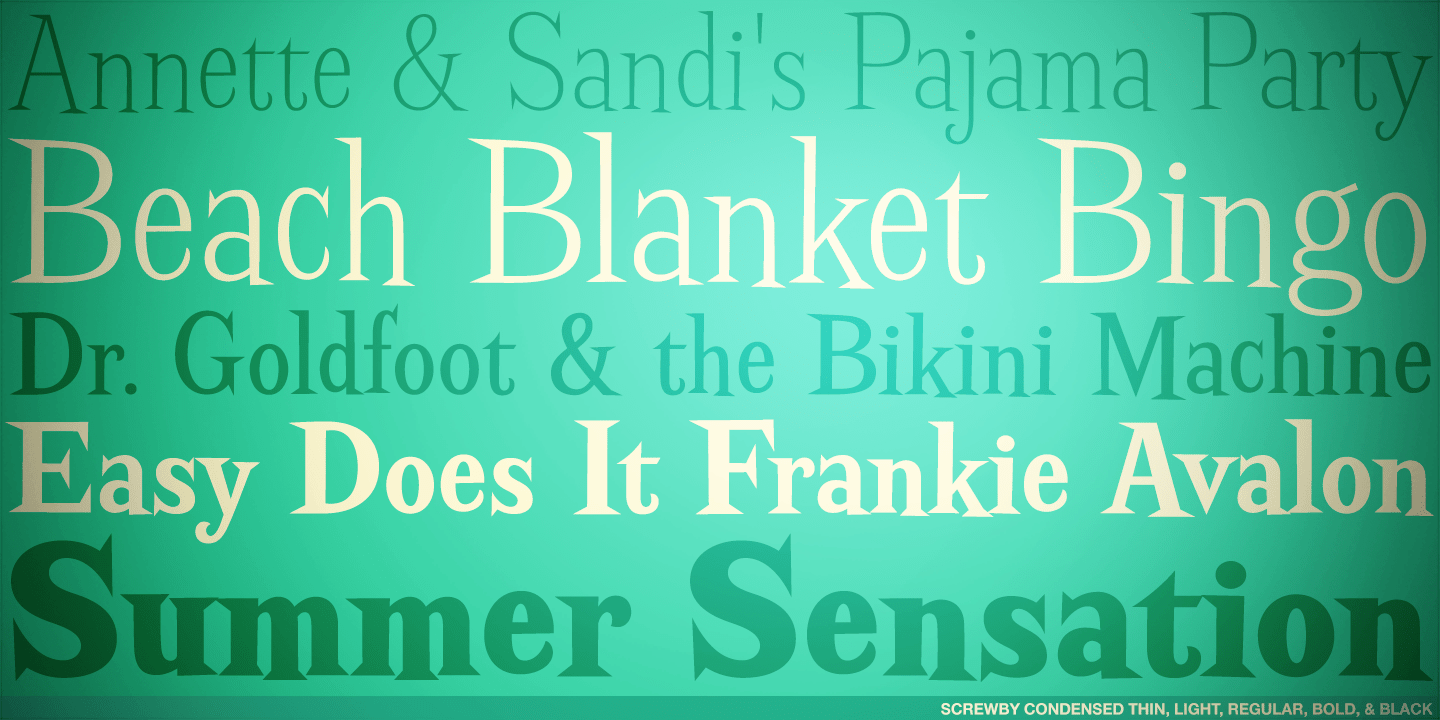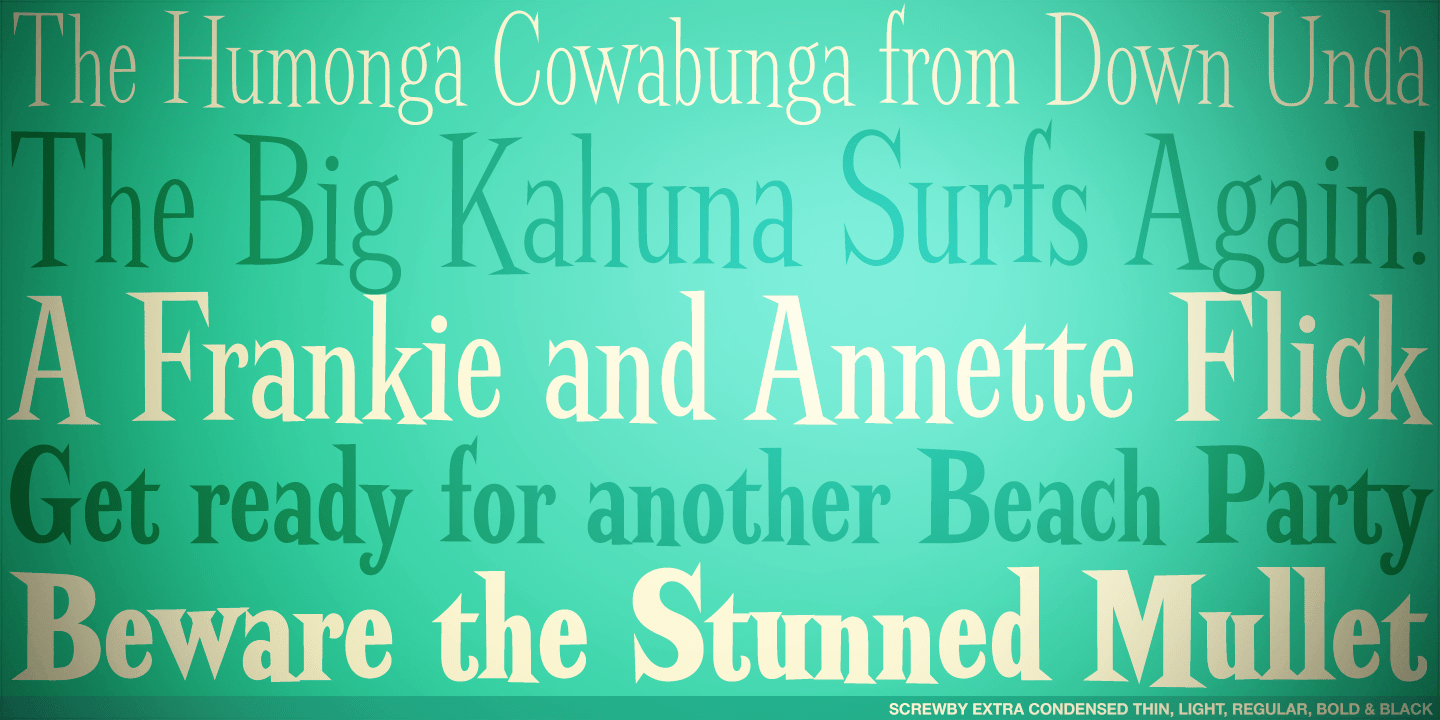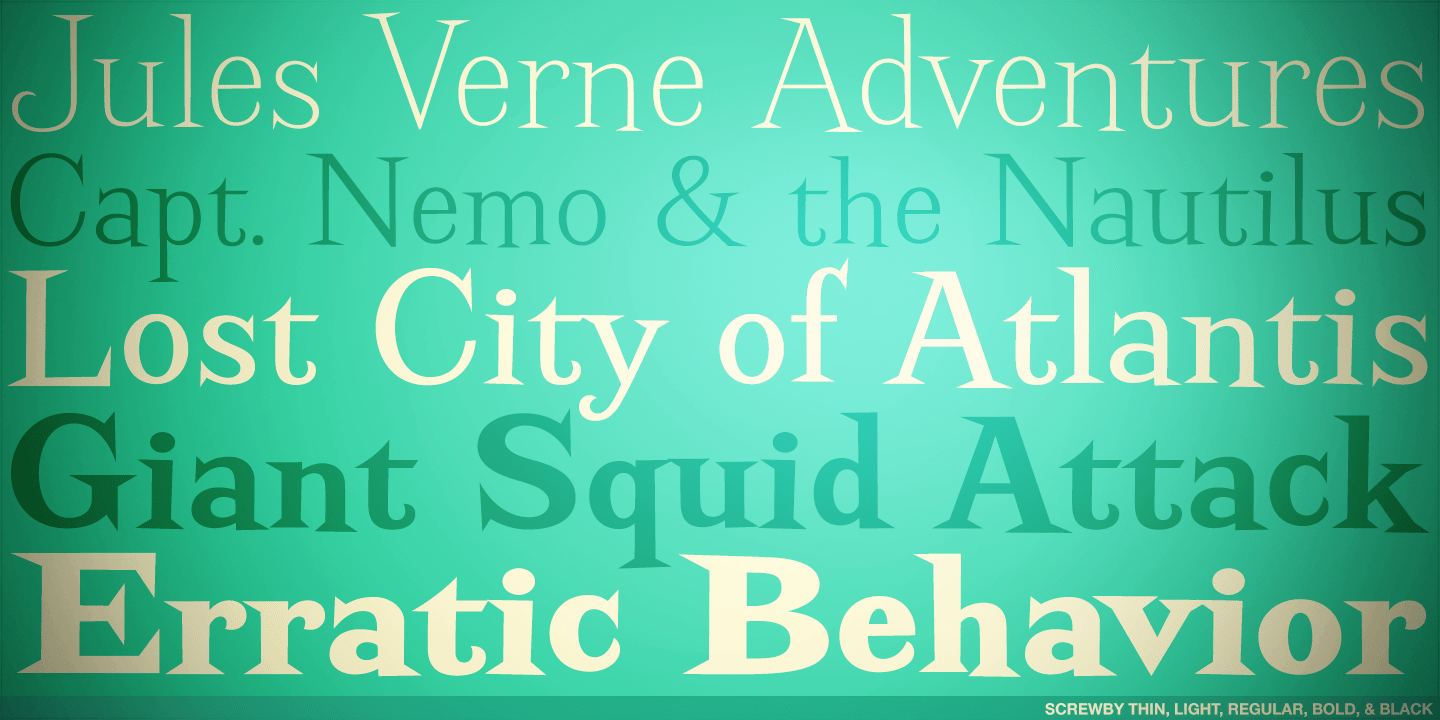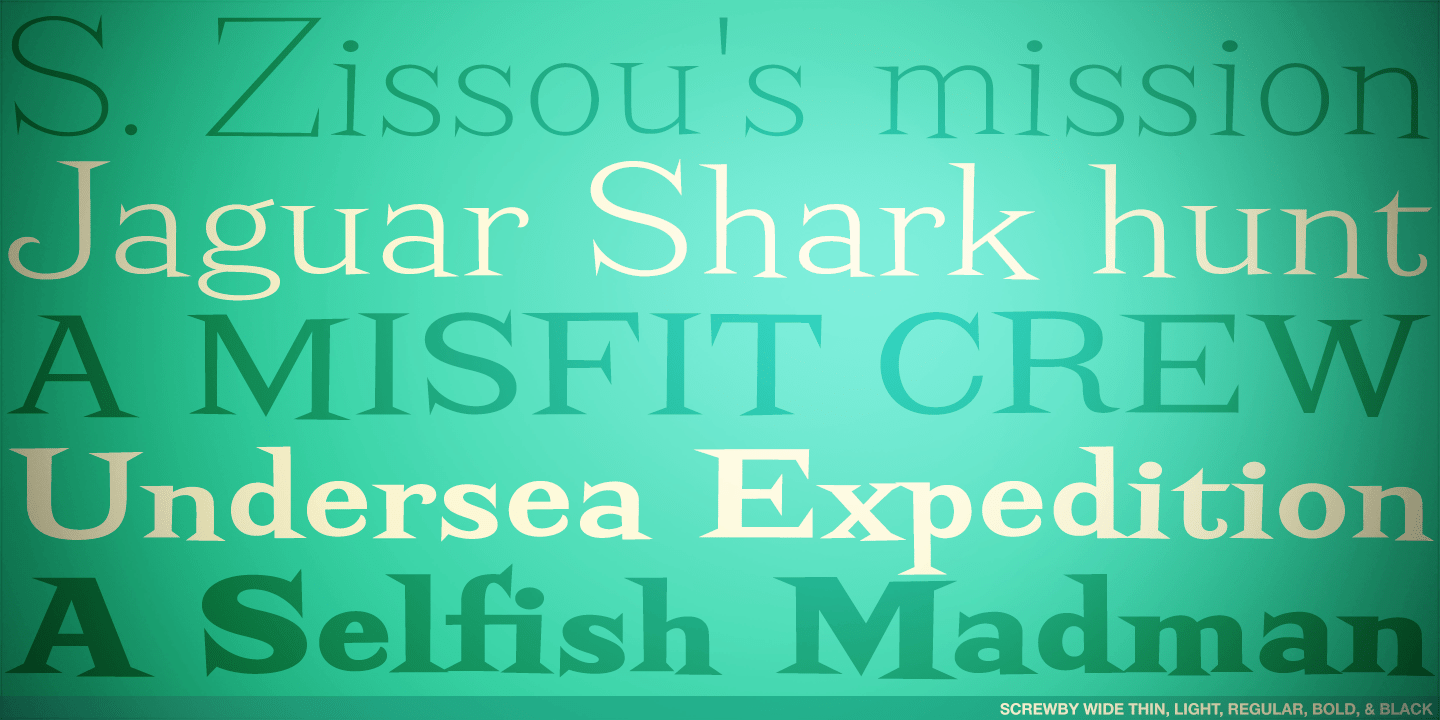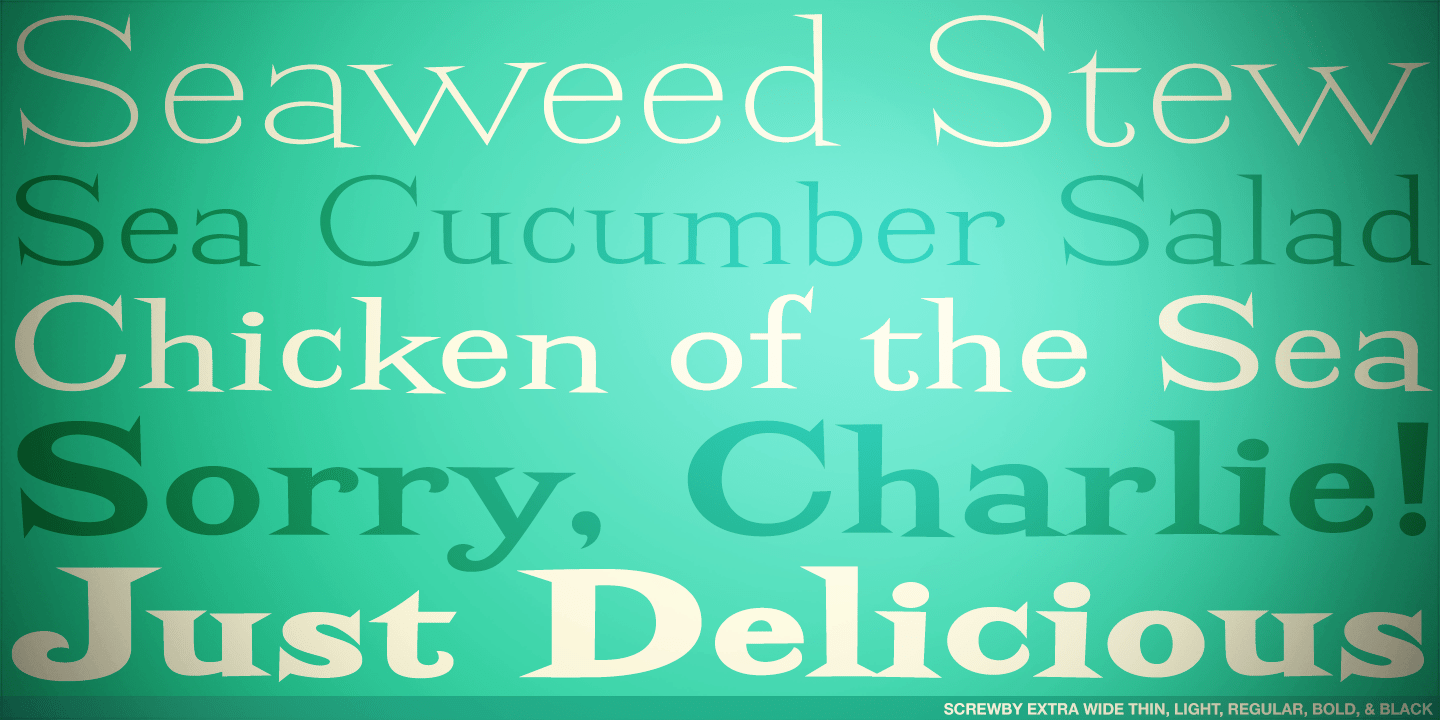
About Screwby
A slightly offbeat latin typestyle, Screwby started as a digitization of a film typeface called Surf by Lettergraphics. From there, this wonderful typeface was expanded into a giant family of fun widths and weights to play with: from spindly thin and…